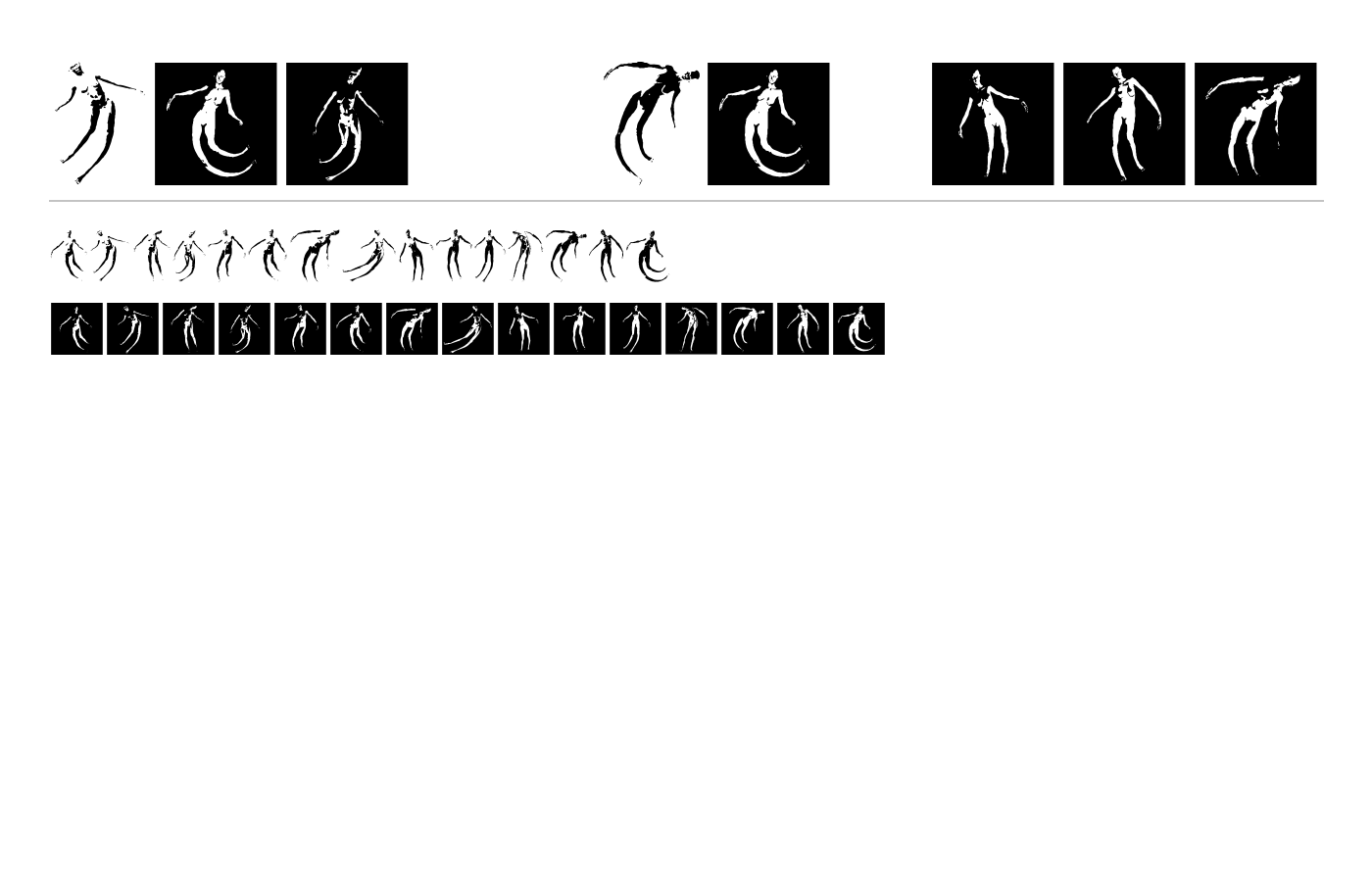
Body Moving Font is a highly artistic and expressive display typeface that transforms human figure silhouettes into dynamic letterforms. With its fluid, sketch-like strokes and animated poses, it conveys a sense of movement and grace, making it ideal for creative branding, dance or art-related projects, and bold headlines that demand attention. This font's unique style captures emotion and energy, offering a striking and unconventional choice for visual storytelling.
Body Moving Font
About Body Moving Font
| Font family | Body Moving Font |